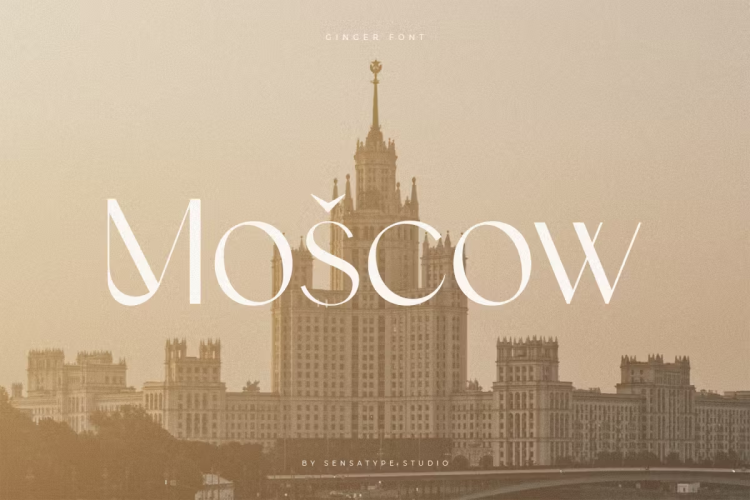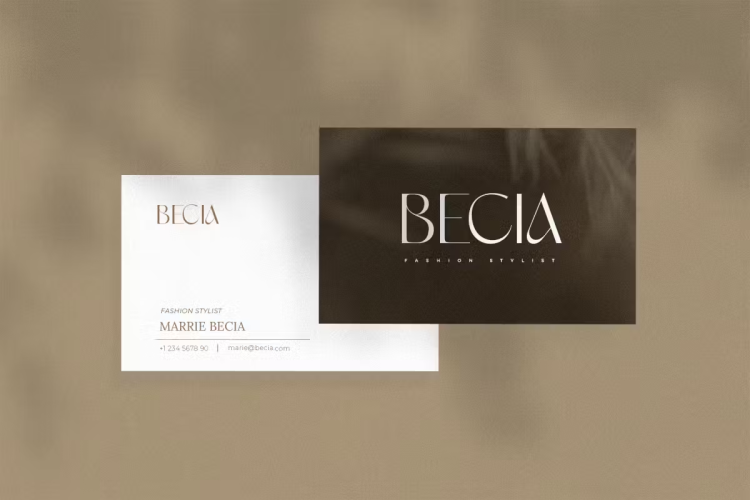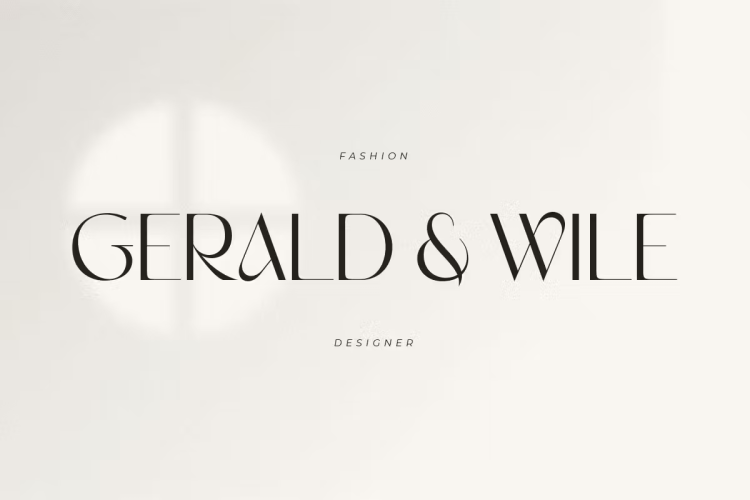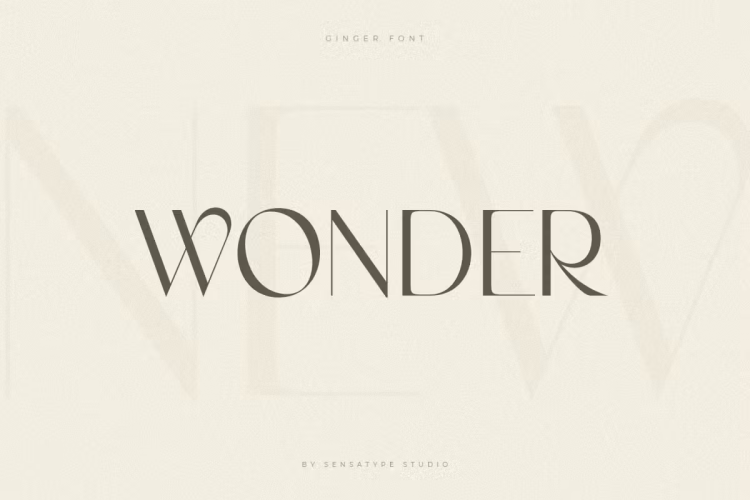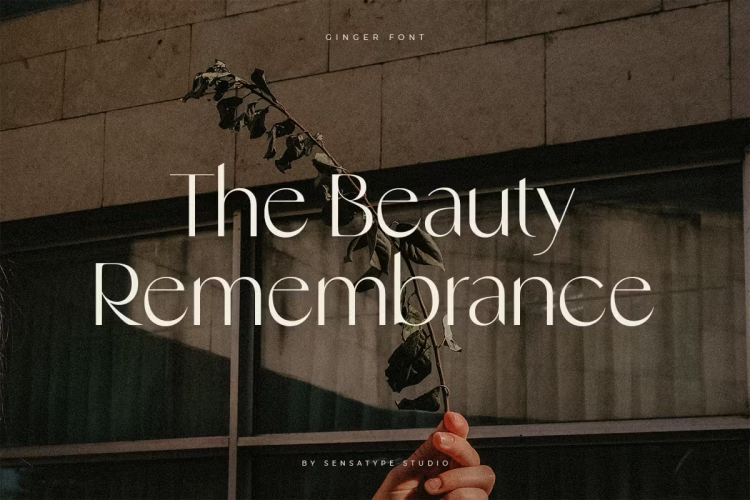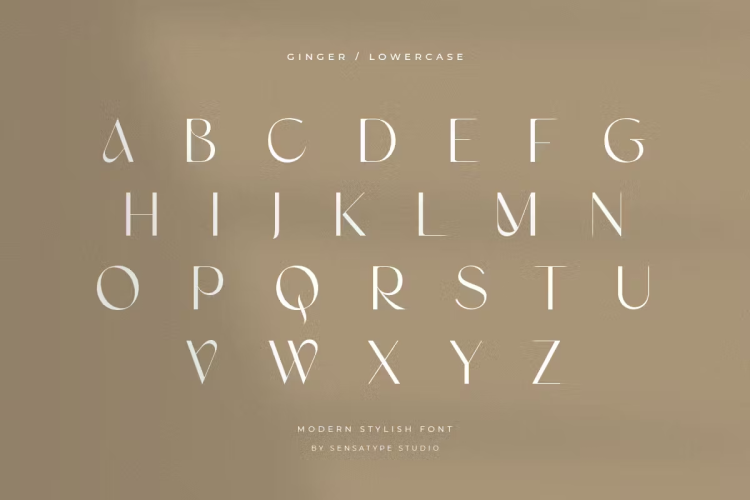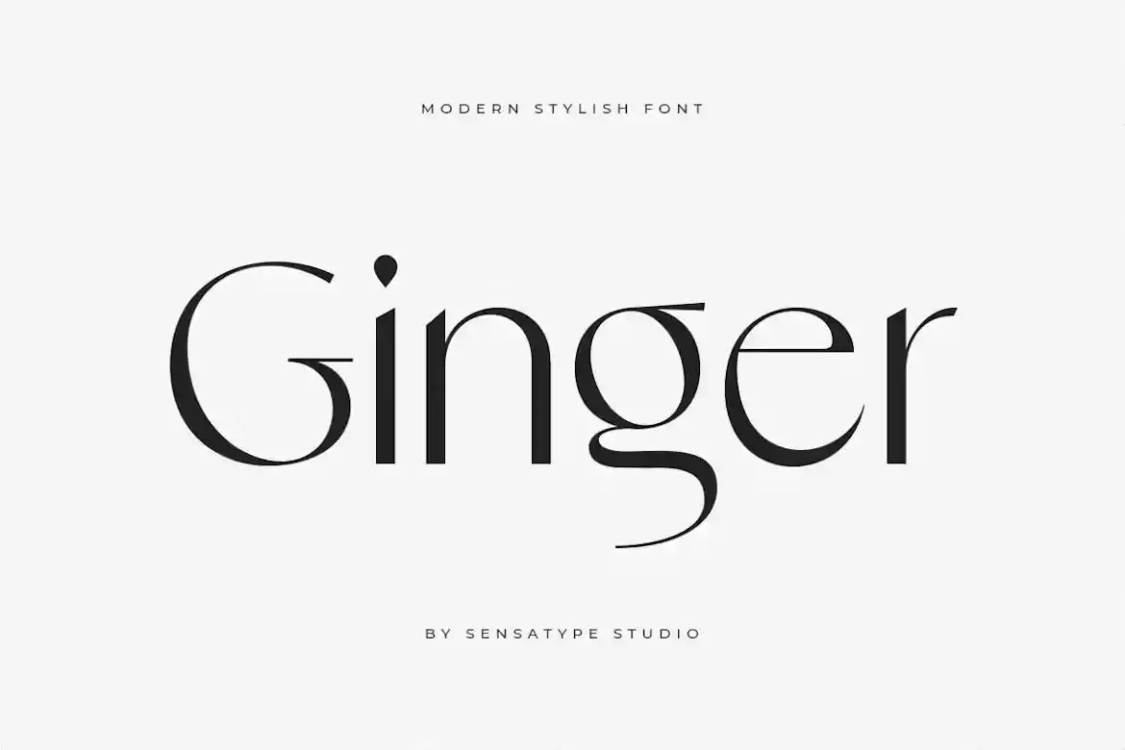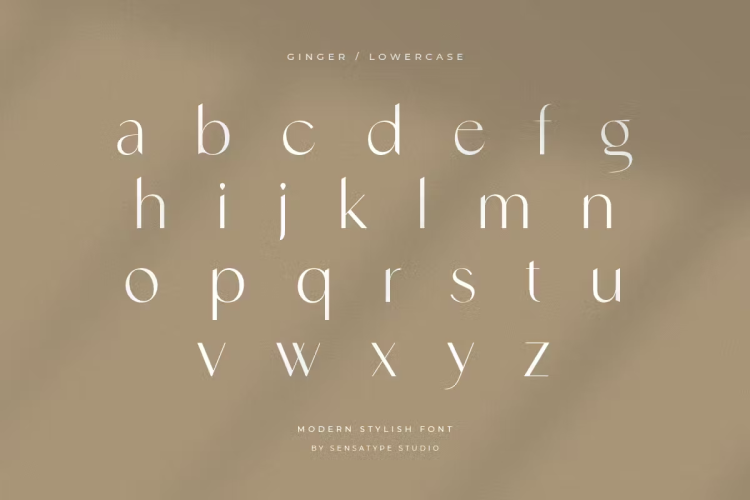
Ginger Font
Ginger is a modern and stylish font that is designed to help designers and brand owners make their logos stand out in today’s competitive market. We understand the importance of choosing the right typeface that can add a modern and unique touch to a brand. That’s why we have created this font with unique characters that offer endless possibilities for your creative needs. With Ginger, you can create unlimited variations for your brand and take it to the next level.
Any options to get creative variations with unique letters
Preview as an inspiration that you can do with Ginger font
Lowercase and Uppercase Characters
Where Ginger Font works best
Ginger Font gives long-form text a classic, trustworthy rhythm — ideal for magazine spreads, annual reports and book interiors.
Pair Ginger Font with generous letter-spacing for wordmarks in fashion, hospitality, wine and jewellery branding.
Use Ginger Font for slide titles in Keynote, PowerPoint or Google Slides to add authority without looking dated.
What is Ginger Font good for?
Ginger Font is a Serif Fonts typeface tagged Branding, Creative, Modern, Serif. It works well for headlines, logos, posters, social media graphics and branding projects that need a distinctive serif fonts look.